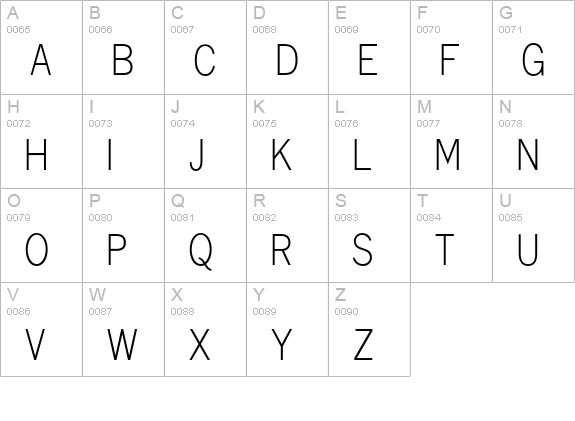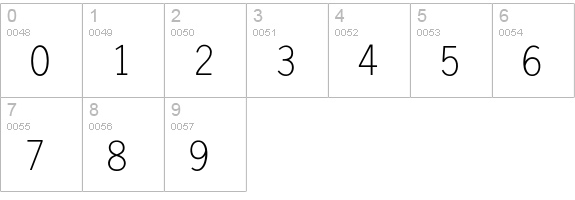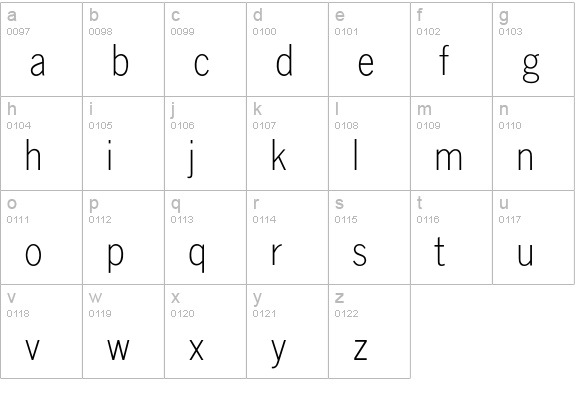
Selene Font Details
Selene font is a stunning typeface that exudes elegance and sophistication. With its graceful curves and stylish letterforms, it is perfect for adding a touch of class to any design project. This font captures the essence of beauty and grace, making it ideal for luxury brands, high-end products, and sophisticated designs. What sets Selene font apart is not only its exquisite design but also its availability as a free download. Yes, you read that right - Selene font is freely available to download at FontsMarket.com. This means that you can access this remarkable font without any cost, allowing you to enhance your designs without breaking the bank. Whether you are a professional graphic designer or a passionate hobbyist, Selene font offers a world of possibilities. Its versatility and timeless appeal make it suitable for a wide range of applications, from logos and branding to invitations and editorial designs. The clean lines and balanced proportions of Selene font ensure optimal legibility, ensuring that your message is conveyed clearly and effectively. With Selene font, your designs will exude a sense of sophistication and refinement. Its delicate yet impactful aesthetic will capture the attention of your audience, leaving a lasting impression. Whether you are working on a project for a fashion brand, a luxury hotel, or an upscale event, Selene font will elevate your design to new heights. So why wait? Head over to FontsMarket.com and download Selene font for free today. Explore the endless possibilities that this remarkable font offers and unleash your creativity. Don't miss out on the opportunity to enhance your designs with this elegant and freely available typeface.